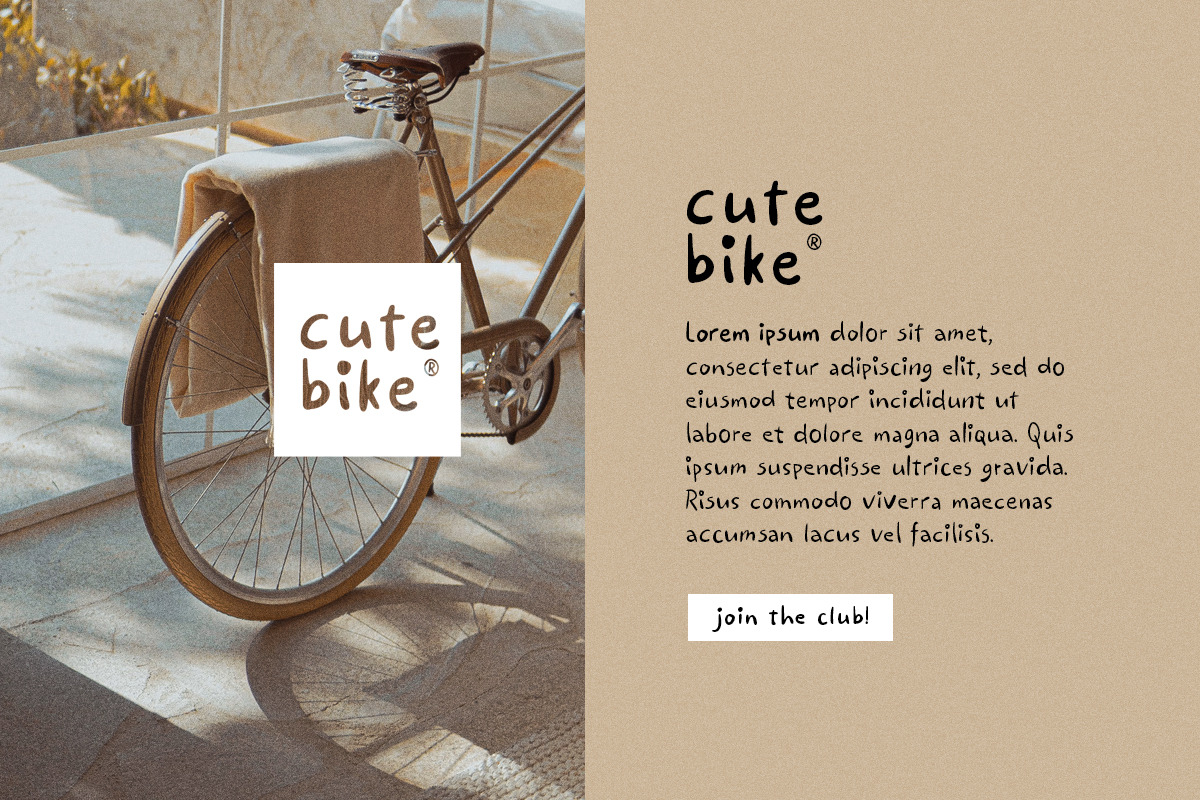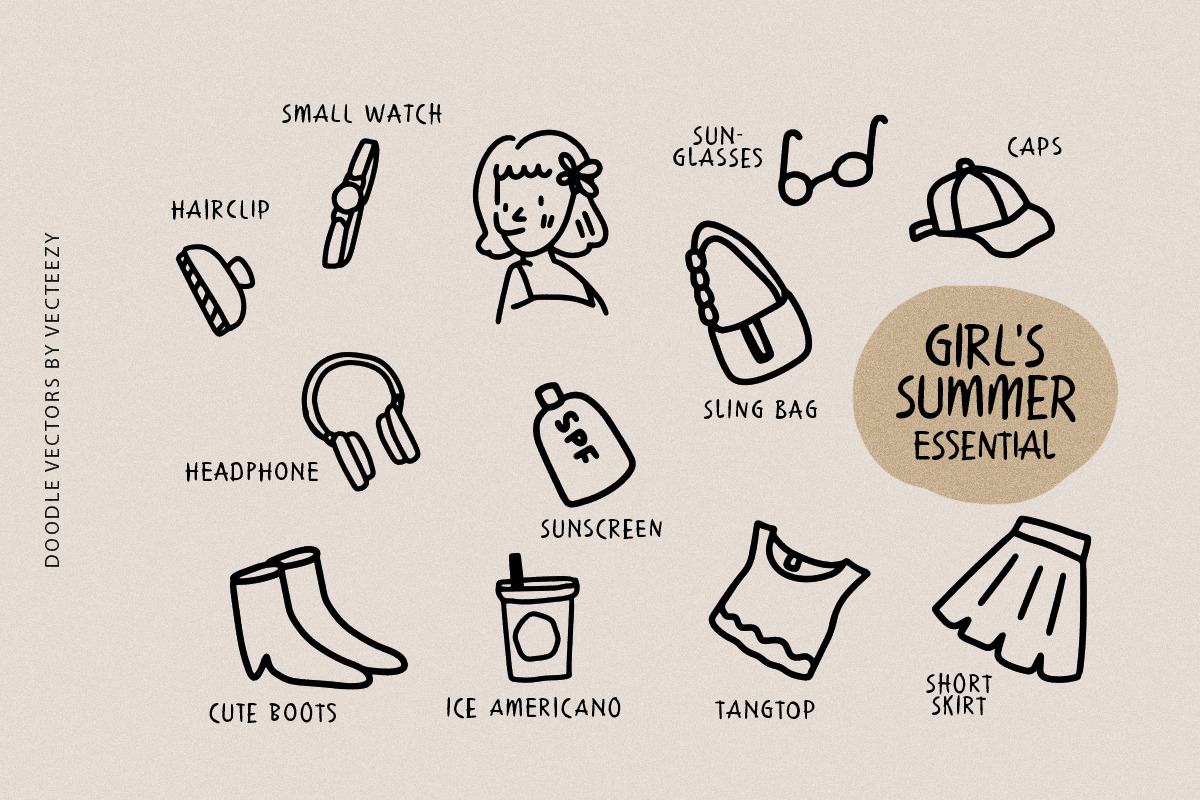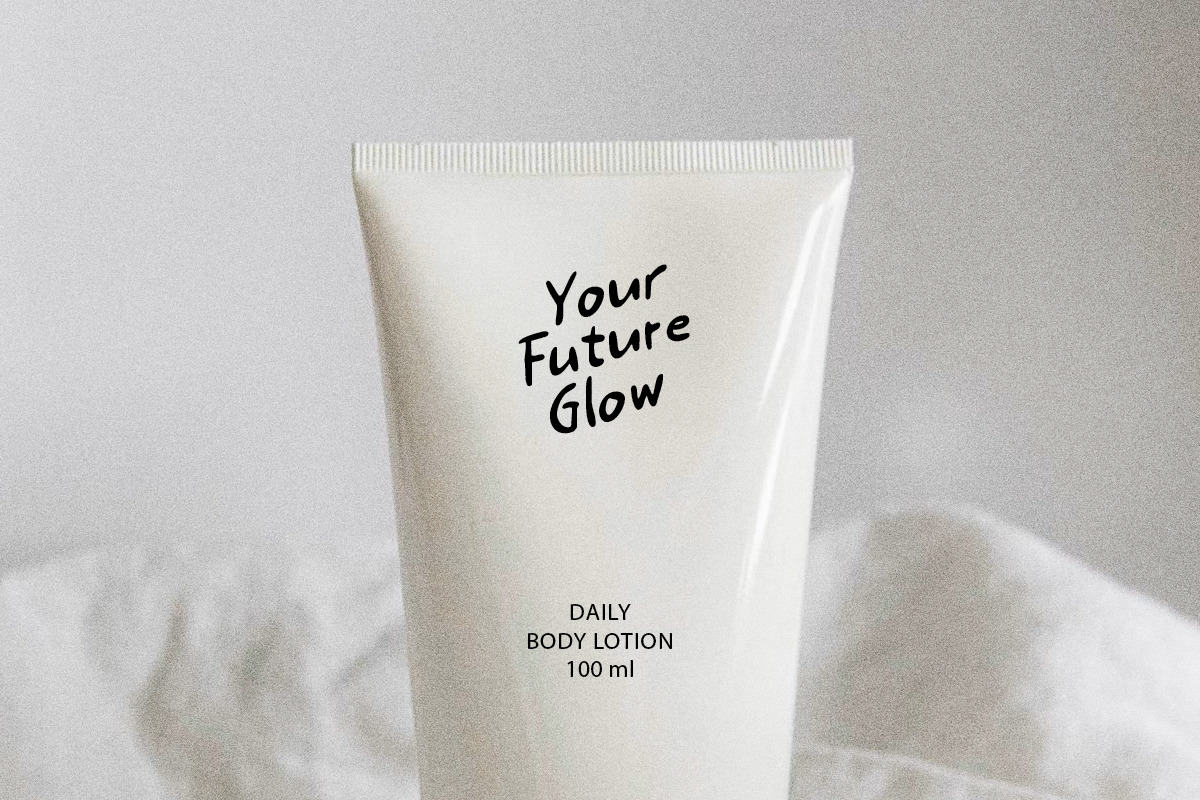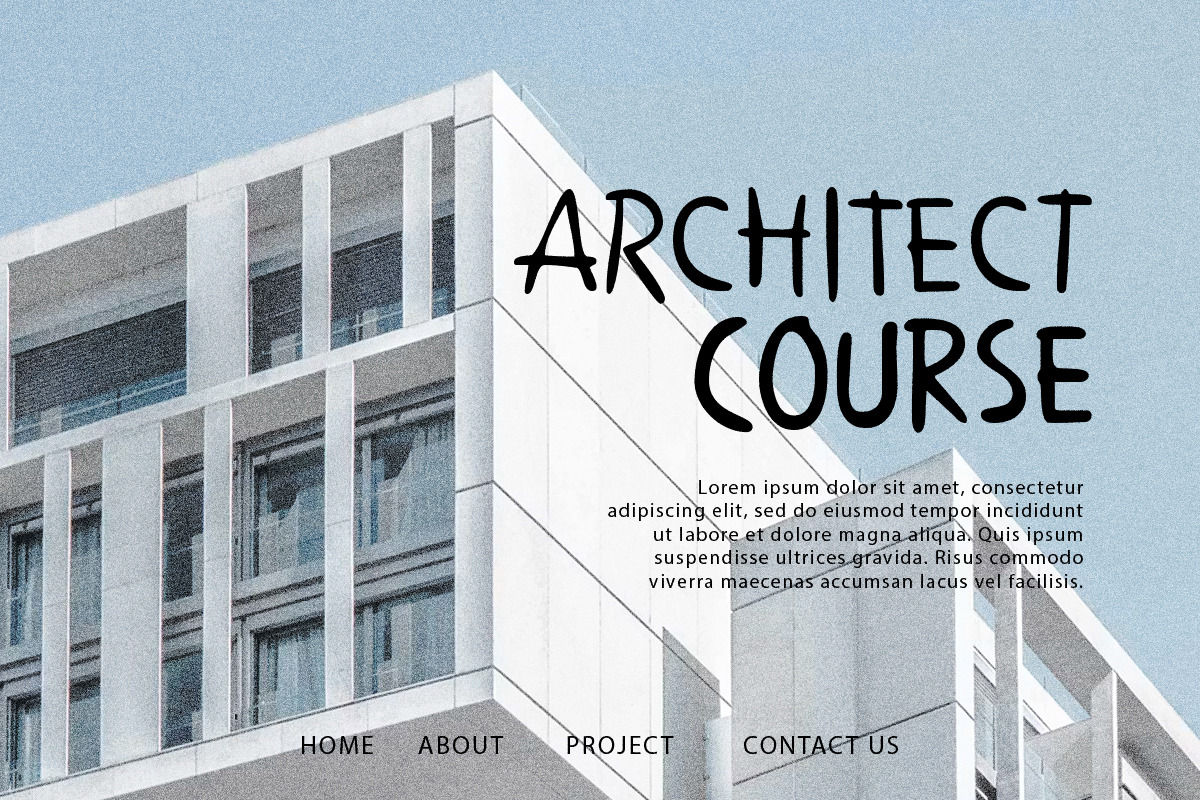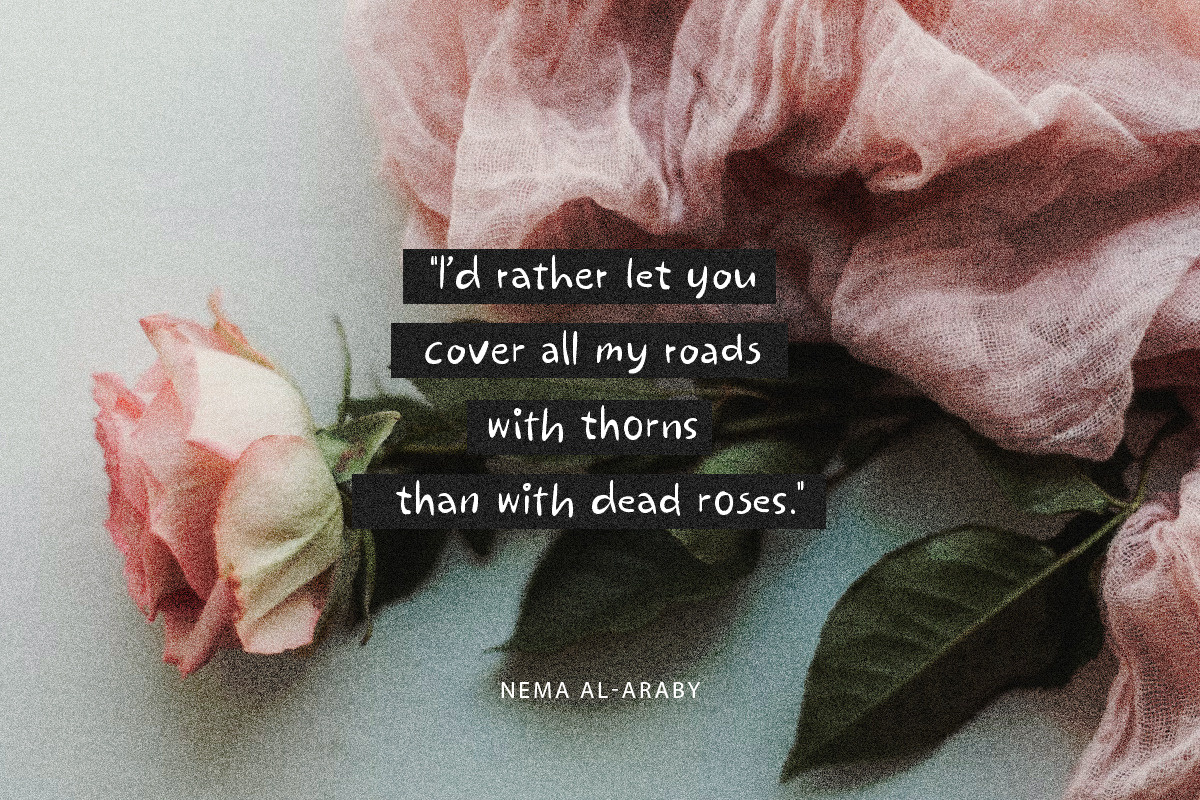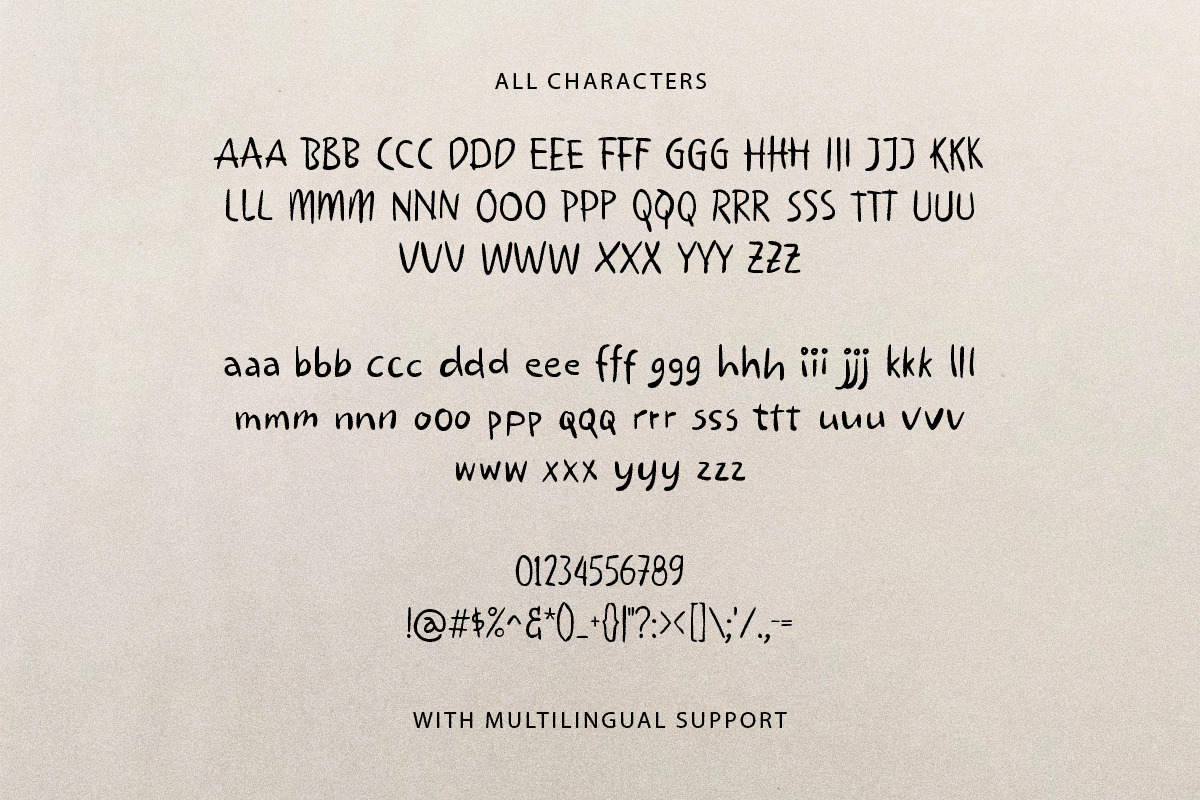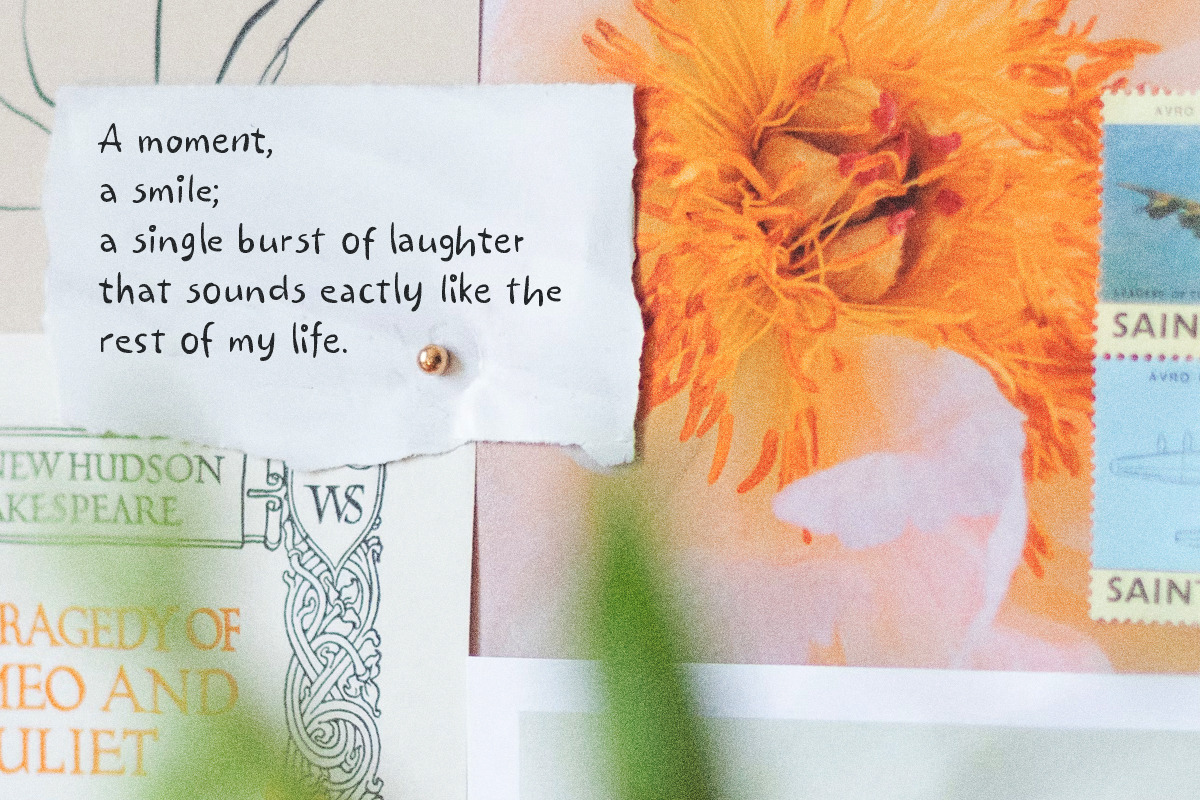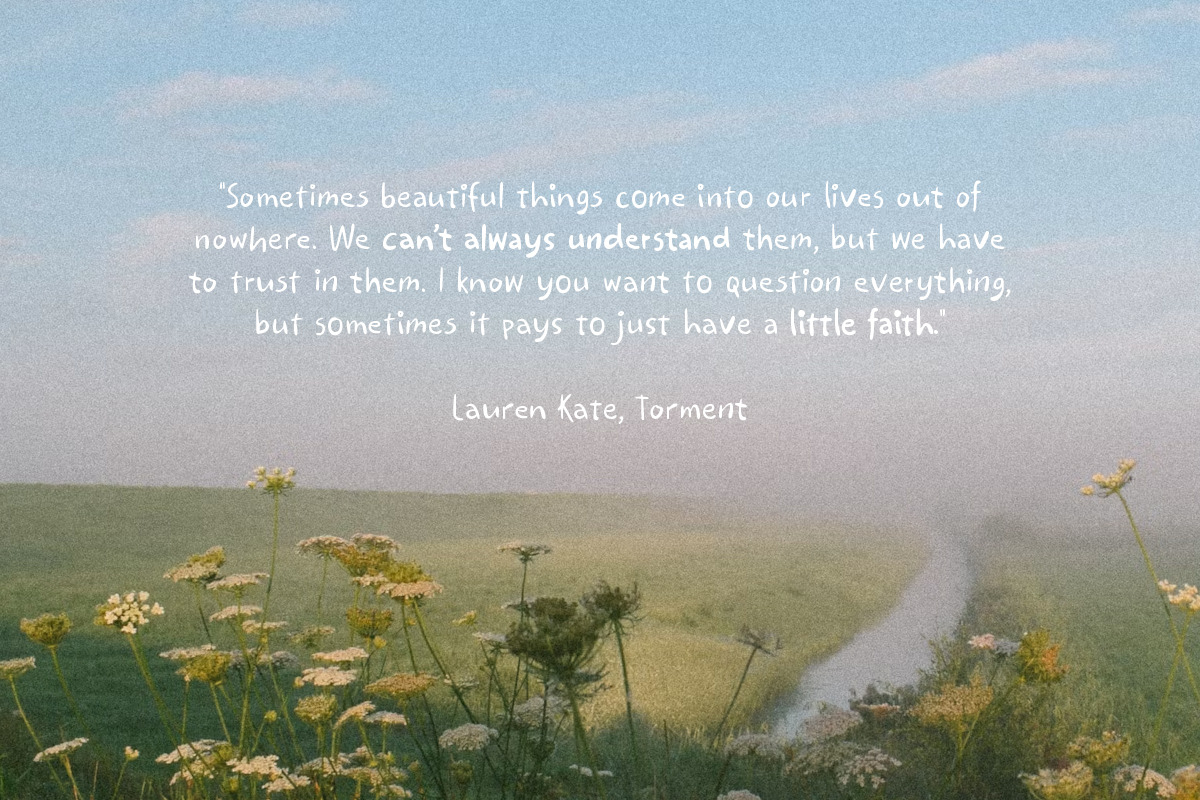
Cream Palette Natural Handwritten
Cream Palette captures the easy charm of handwritten notes with soft, rounded letterforms that feel relaxed and genuinely human. Its playful rhythm and naturally uneven strokes give every word a warm, approachable personality, while the contextual alternates help repeated letters shift automatically for an even more authentic handwritten flow.
Uppercase & lowercase
Numbers and punctuation